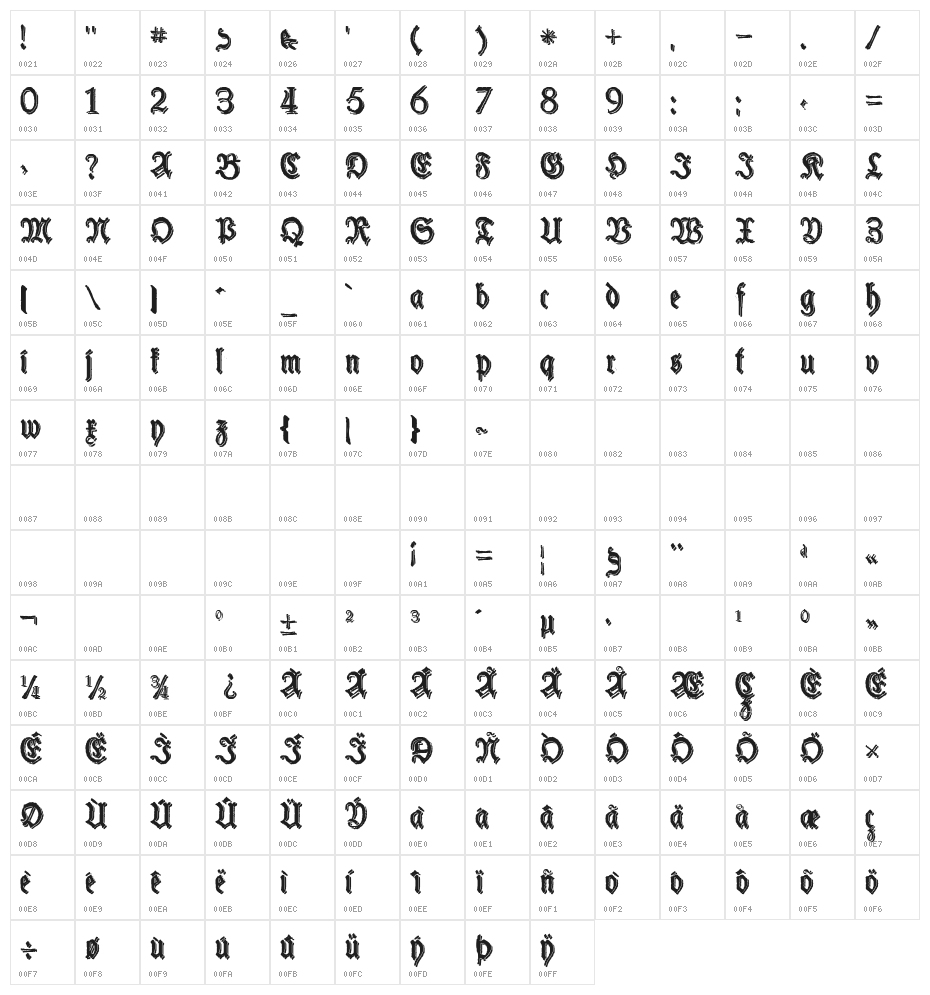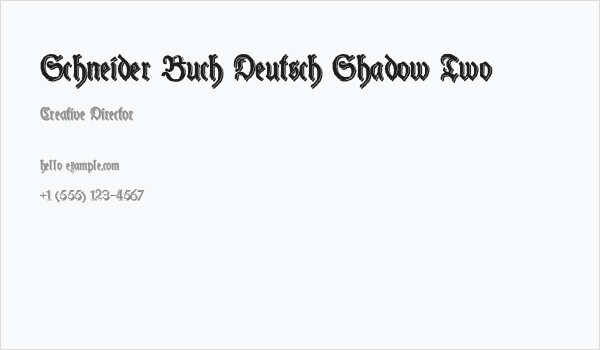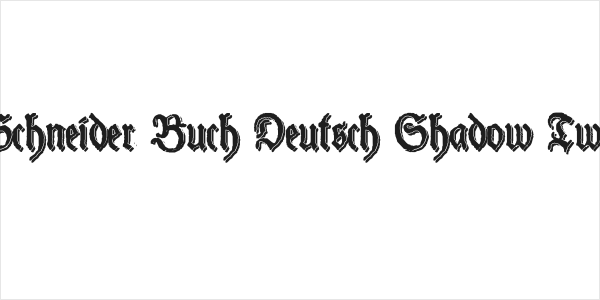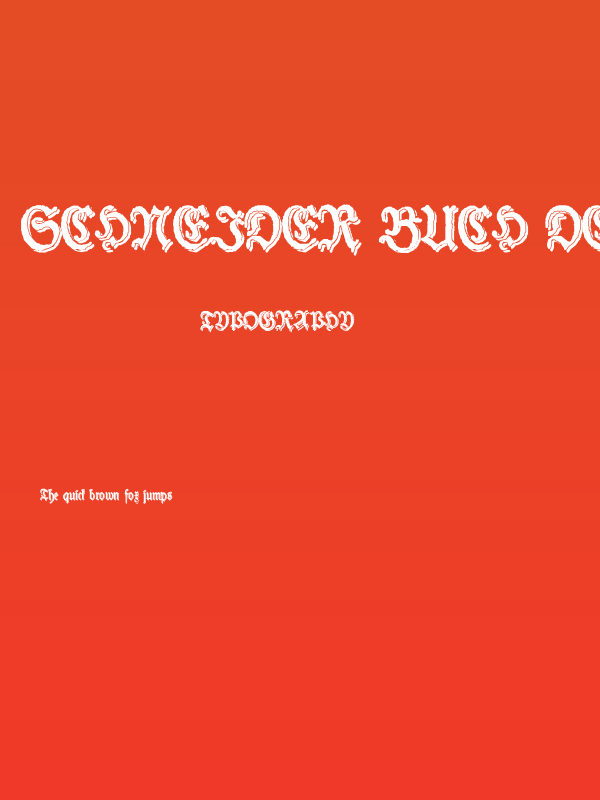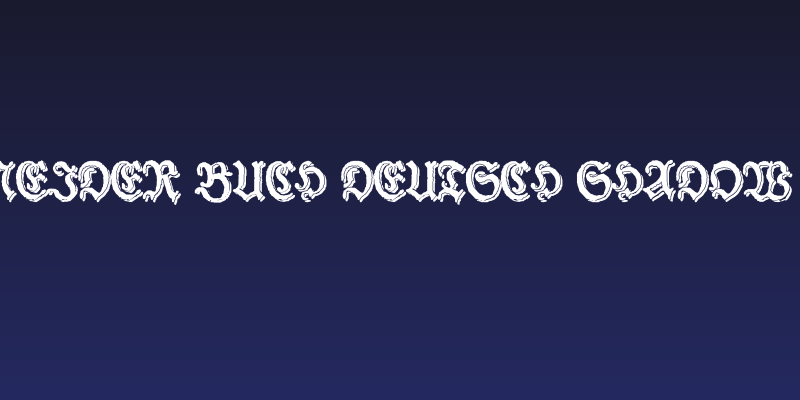
Schneider Buch Deutsch Shadow Two Font
Schneider Buch Deutsch Shadow Two Description
This font exhibits a bold and dramatic style, characterized by its intricate and ornate design. The letters are heavily stylized with sharp edges and elaborate flourishes, reminiscent of traditional Gothic or Blackletter scripts. The shadow effect adds depth and a three-dimensional appearance, enhancing its decorative nature. The uppercase and lowercase letters maintain a consistent style, with the numerals and special characters following suit. This font's unique aesthetic makes it stand out, ideal for projects that require a historical or medieval touch.